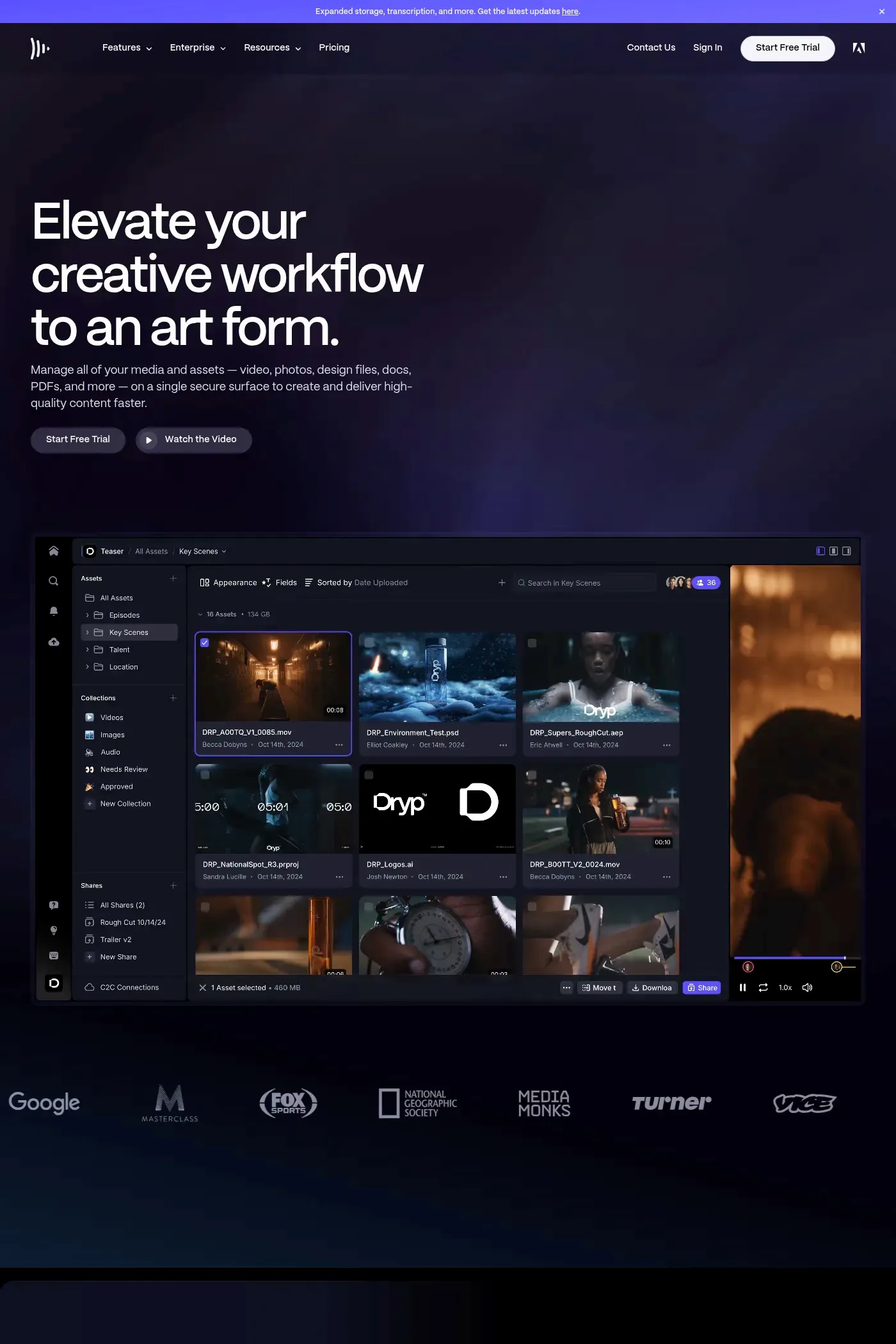
Frame Gothic is a sans-serif typeface from Monotype.
Our custom typeface, Frame Gothic, is a modernist sans serif. Designed in partnership with Monotype.